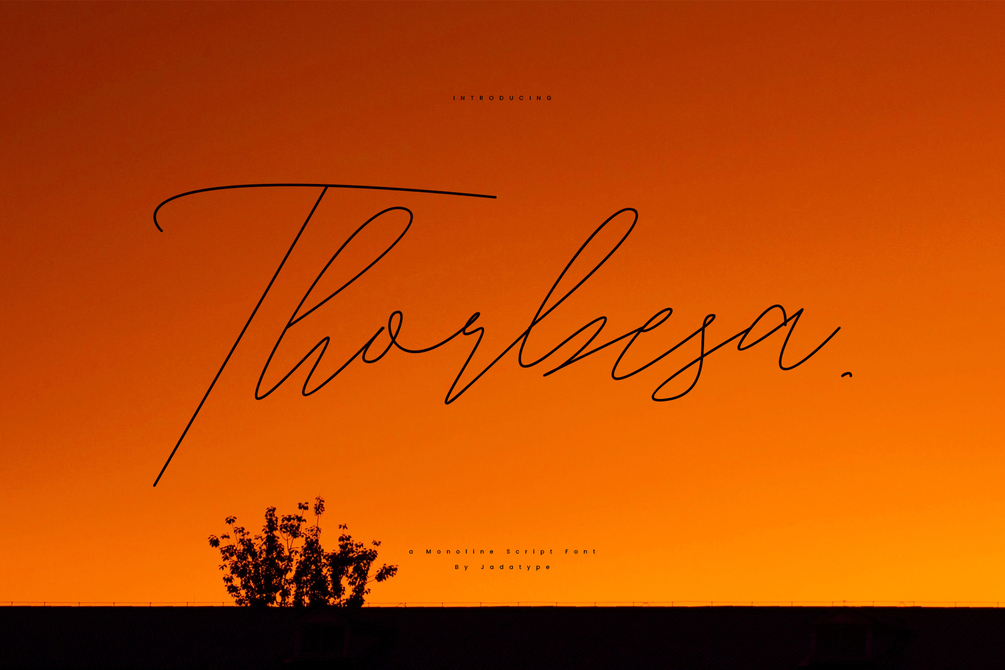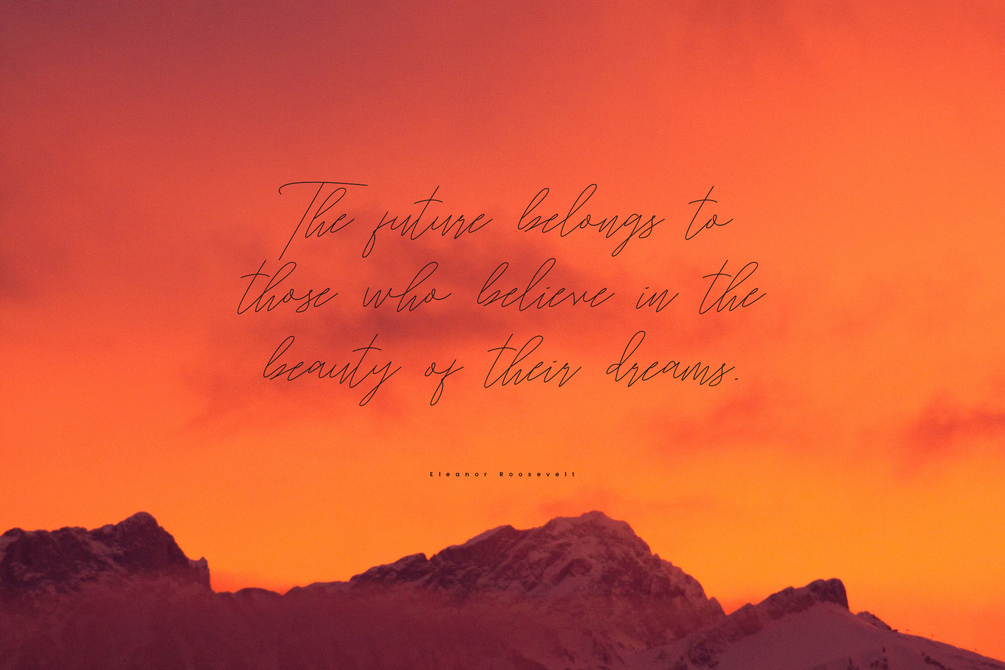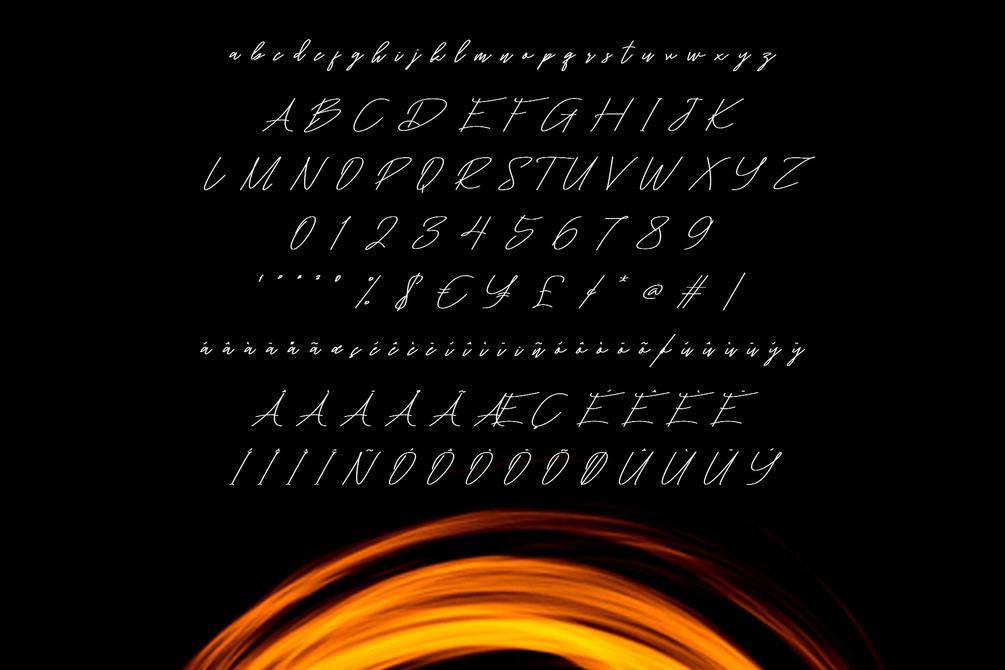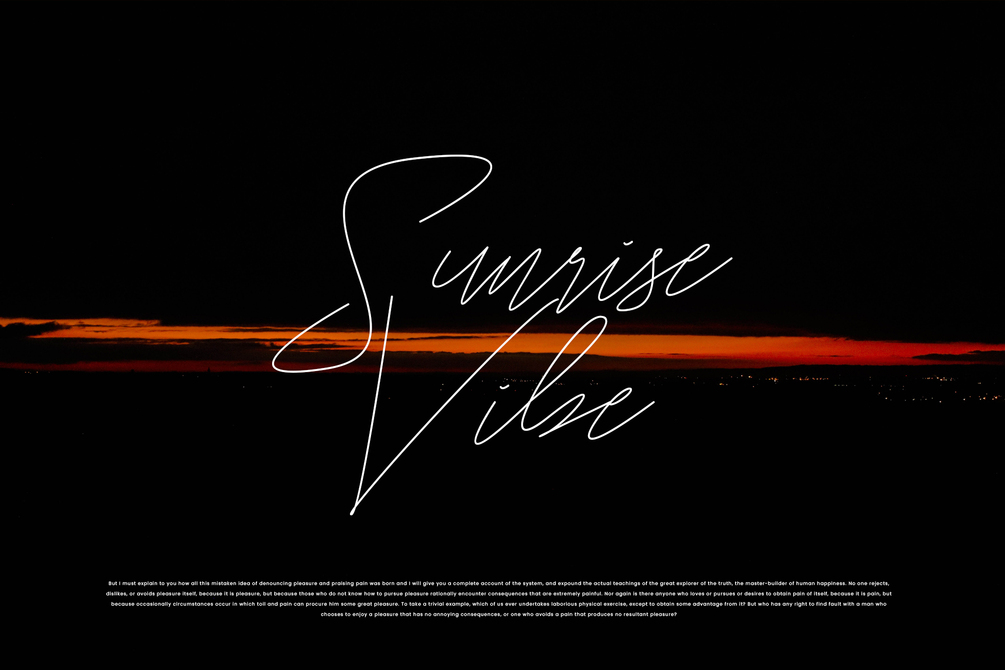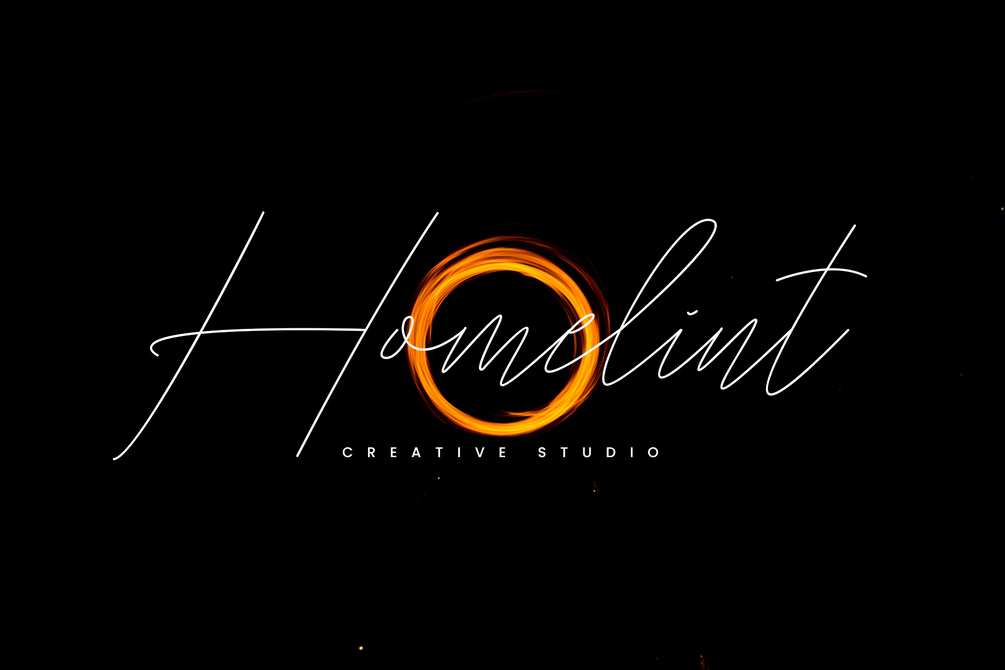
Torbhesa Font
Torbhesa is a font with a simple monoline style. suitable social media, craft, product, branding, book, and so on. contains standard English letters, numbers, punctuation, and several accents that support multilingualism.